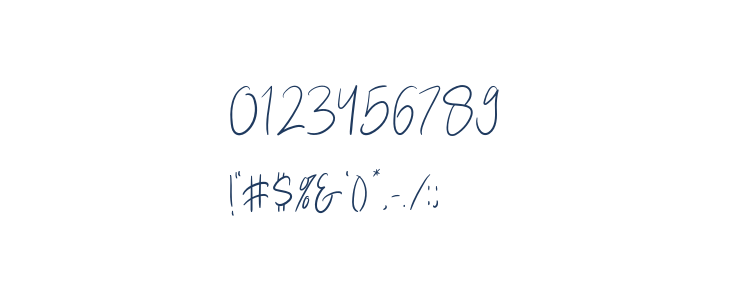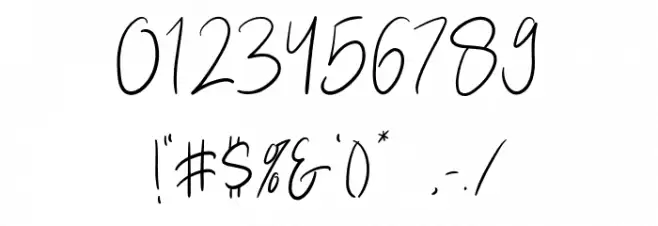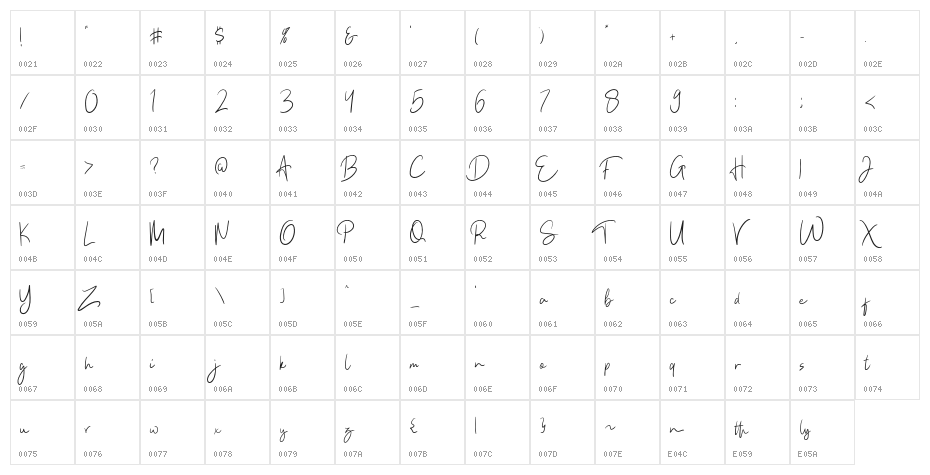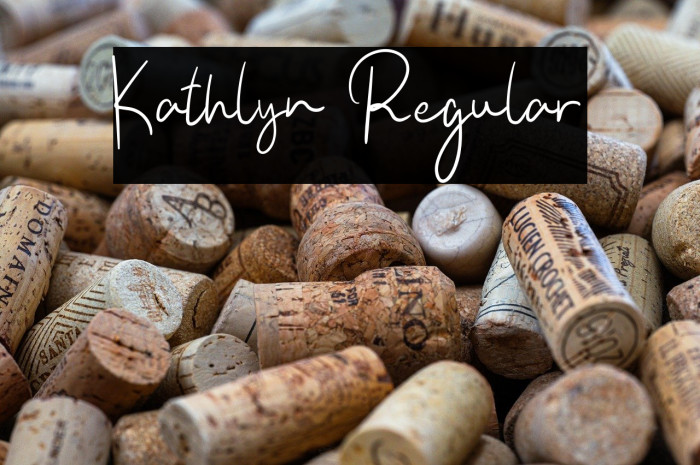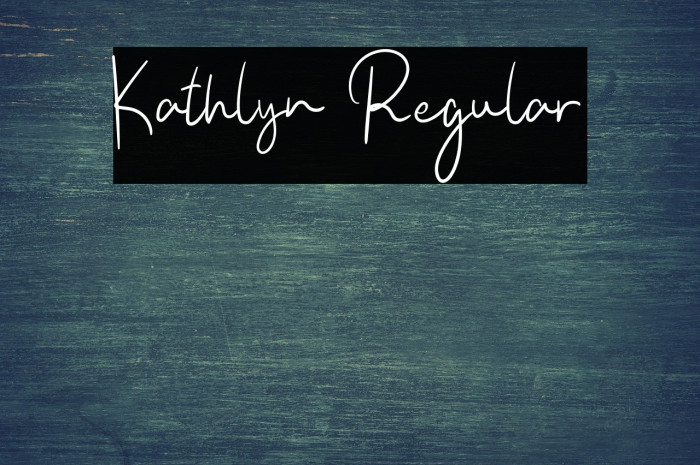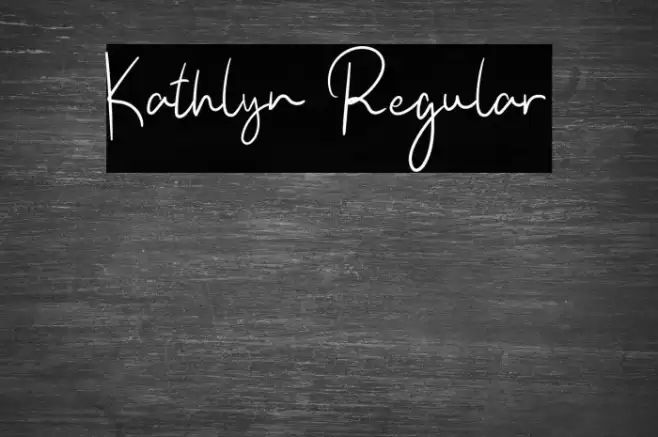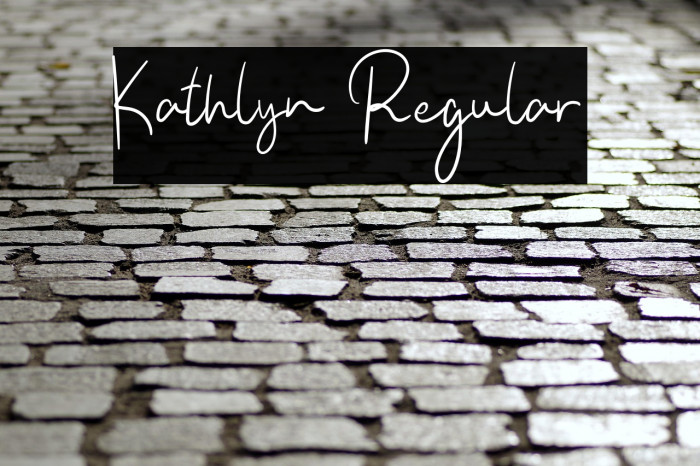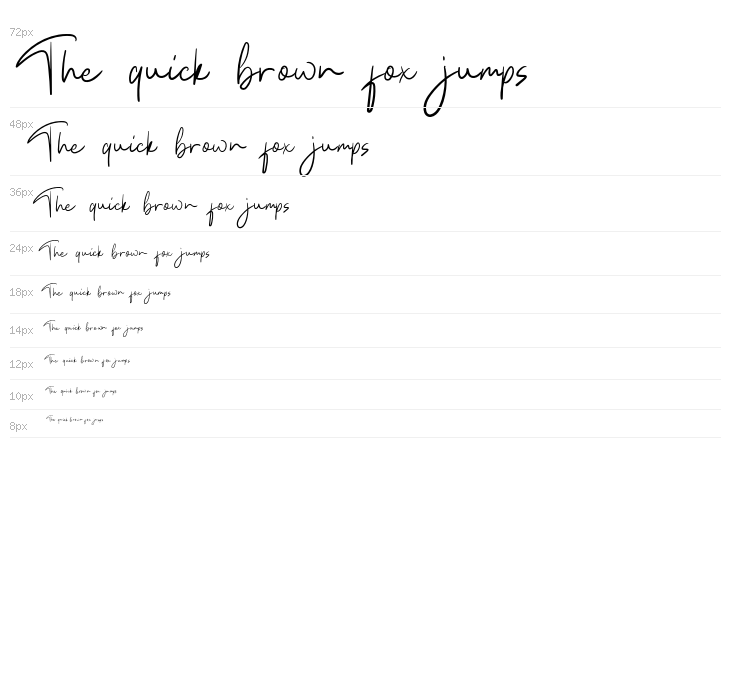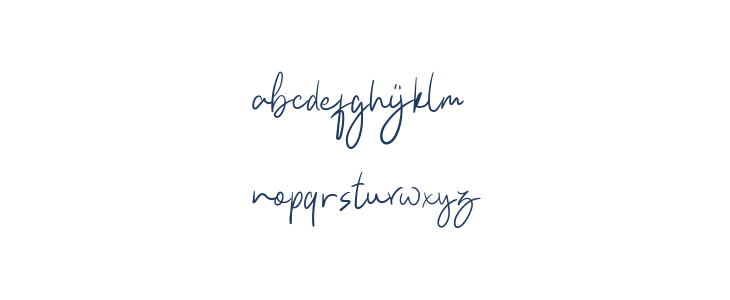
Kathlyn Regular Font
Kathlyn Regular Description
This font features a lively and dynamic handwritten style, characterized by its flowing and interconnected strokes. The uppercase letters exhibit a playful yet elegant flair, with varying line thickness that adds a sense of movement and energy. The lowercase letters maintain a consistent style, complementing the uppercase with their smooth curves and loops. The numerals are distinct and easy to read, maintaining the overall aesthetic of the font. Special characters are creatively designed, fitting seamlessly into the font's style. This font is perfect for projects that require a personal touch, such as invitations, greeting cards, or branding materials that aim to convey warmth and creativity.
KATHLYN-REGULAR UPPERCASE
KATHLYN-REGULAR LOWERCASE
KATHLYN-REGULAR OTHER CHARS